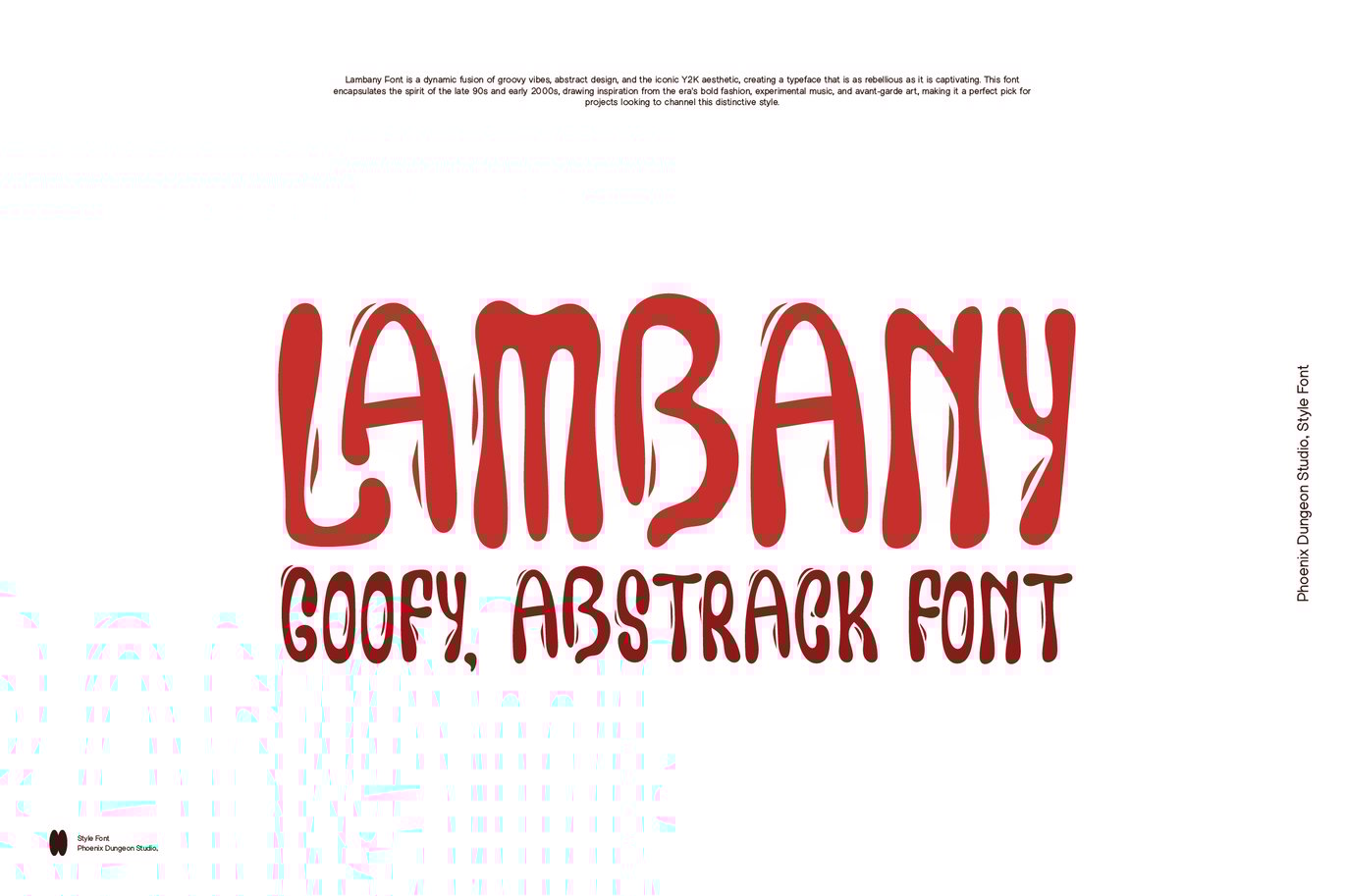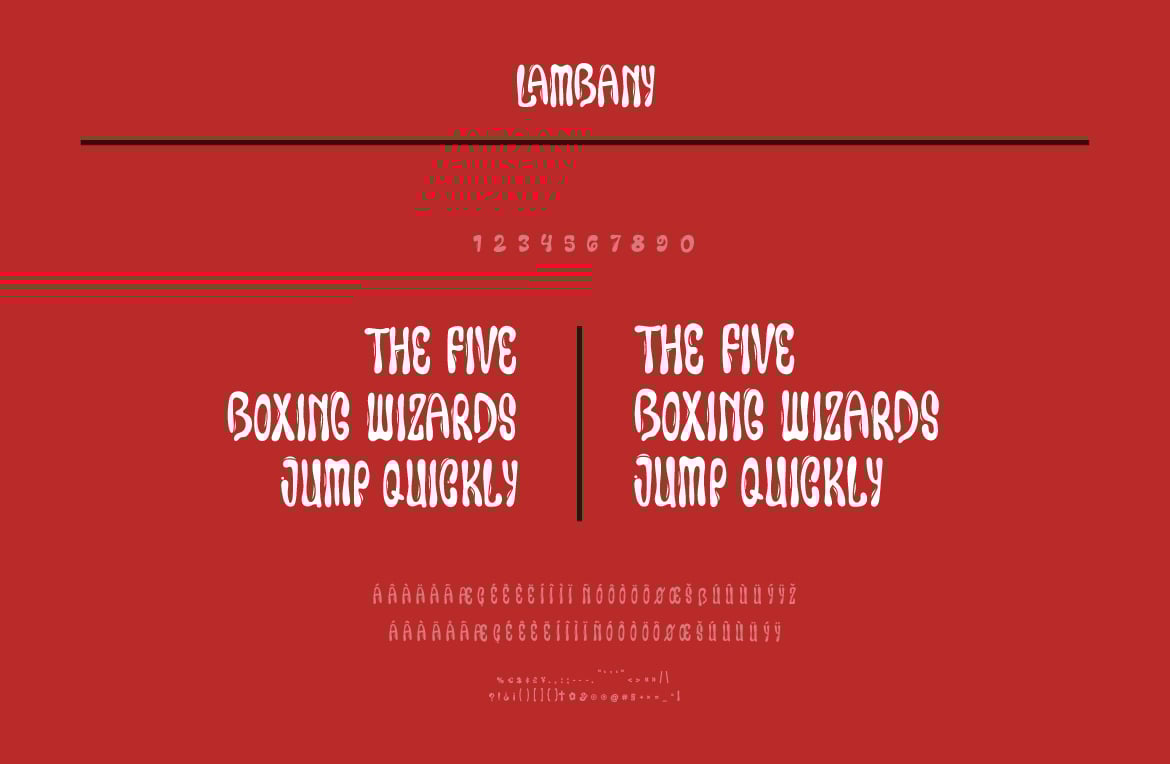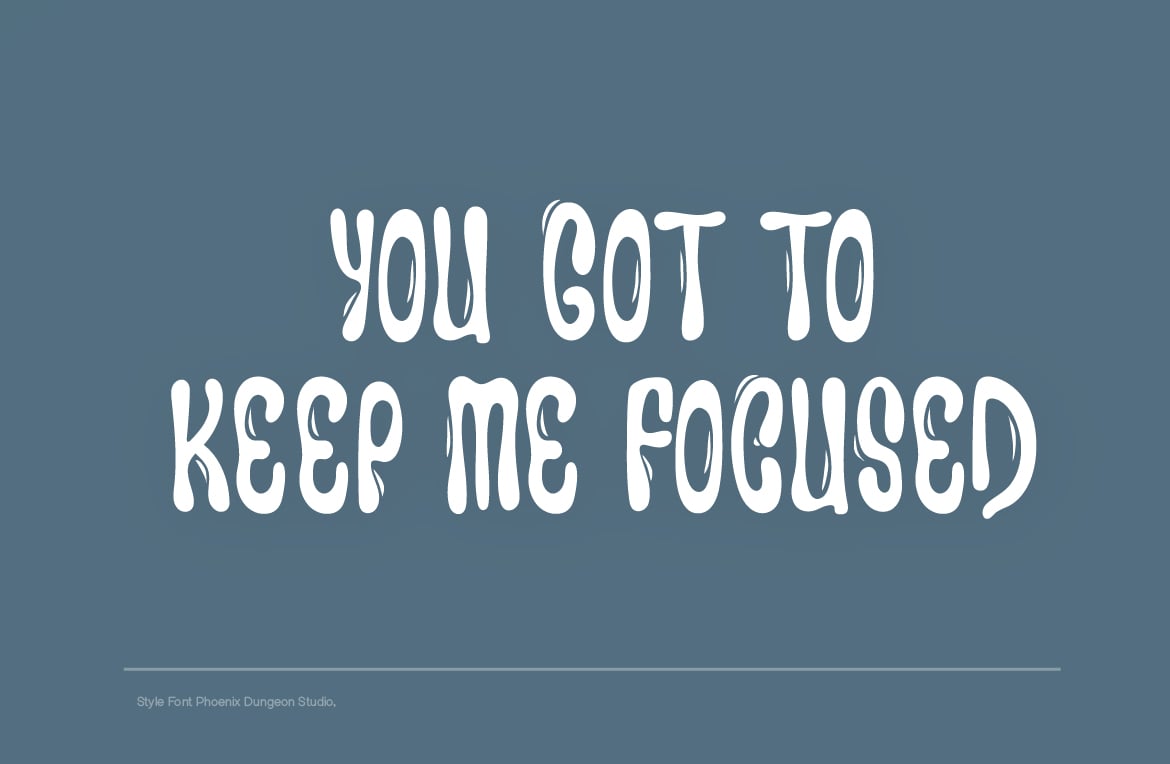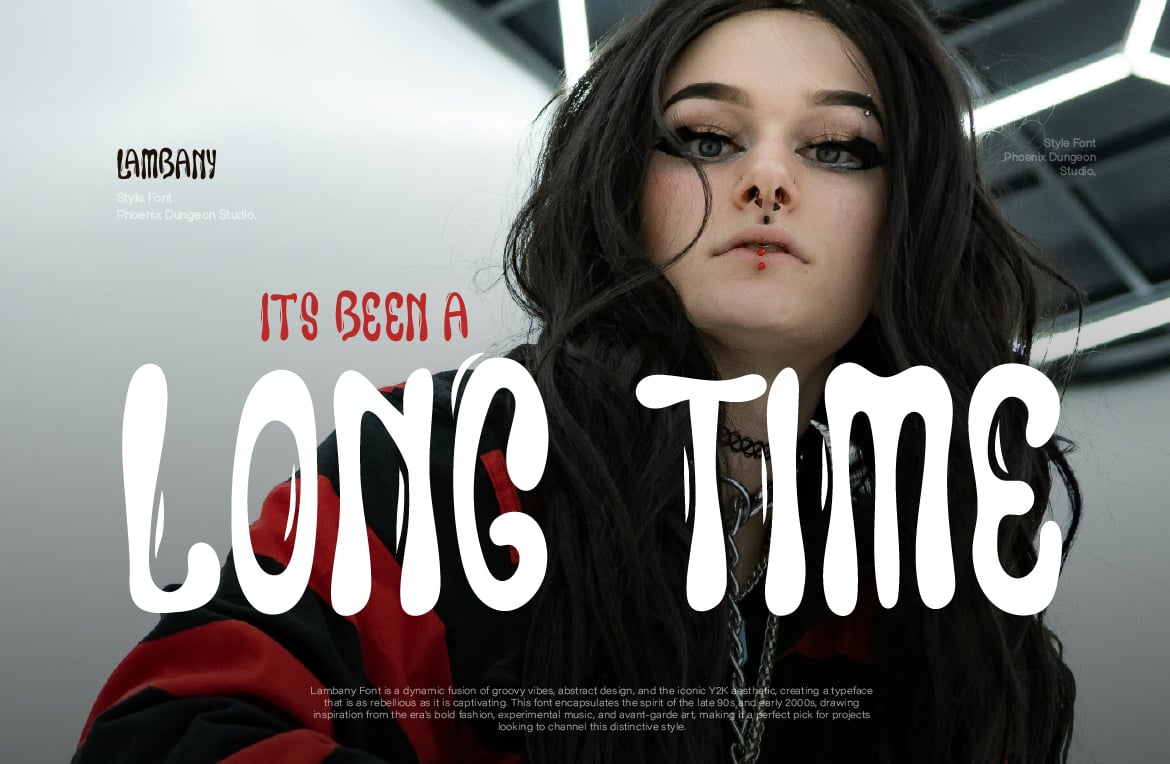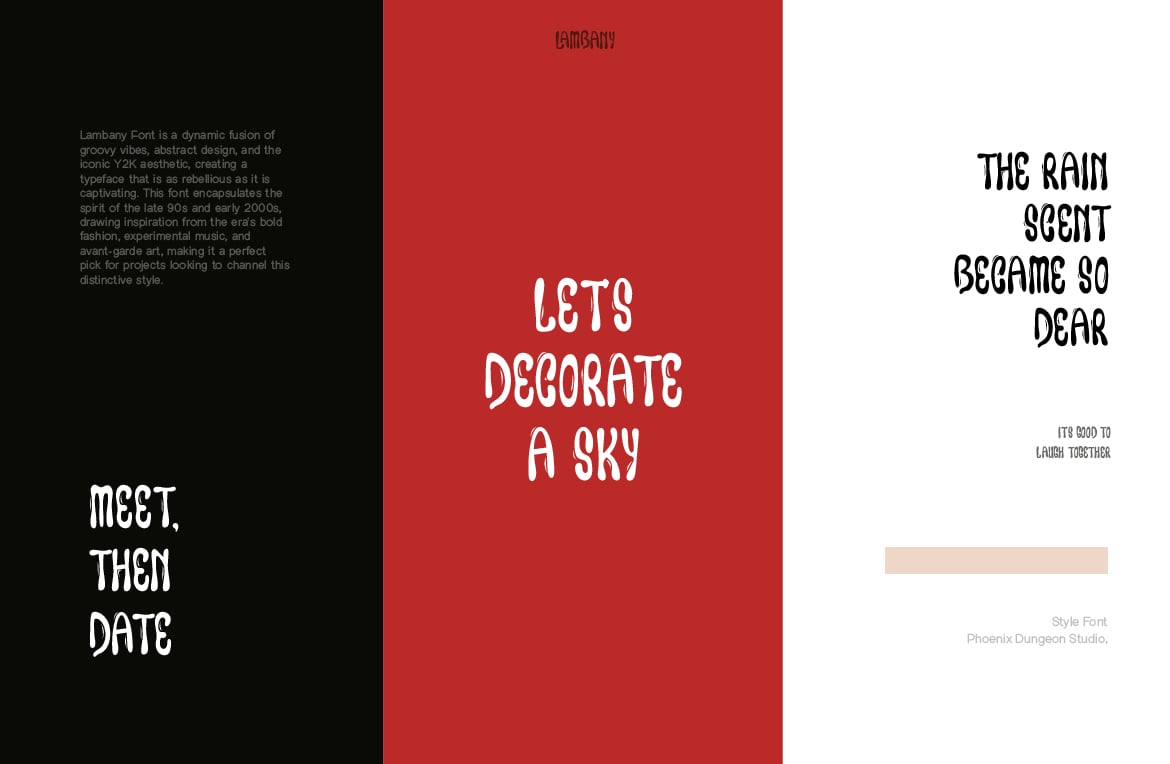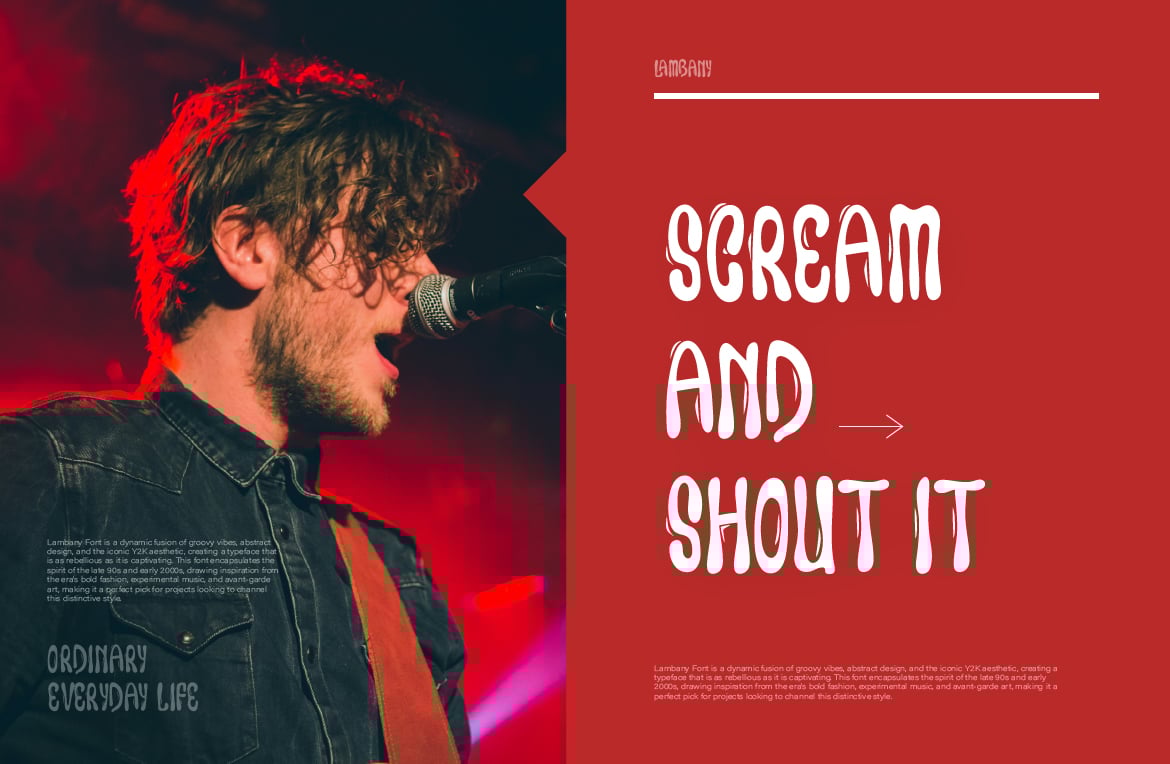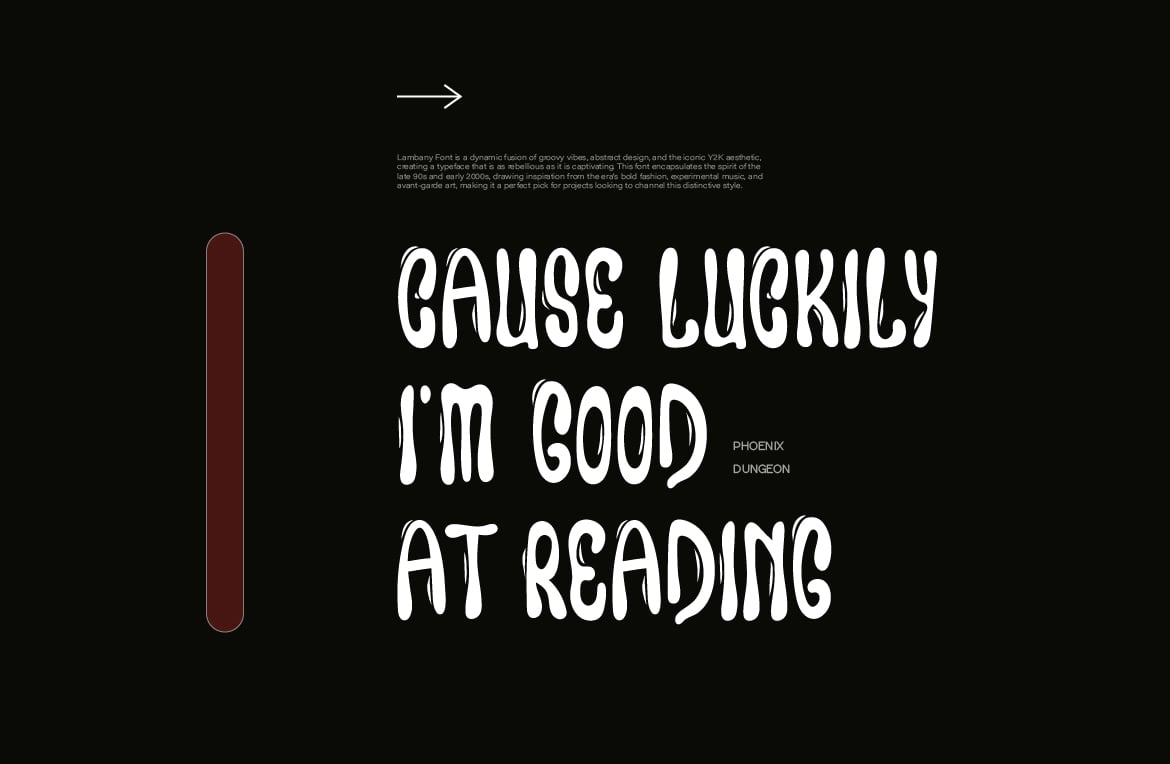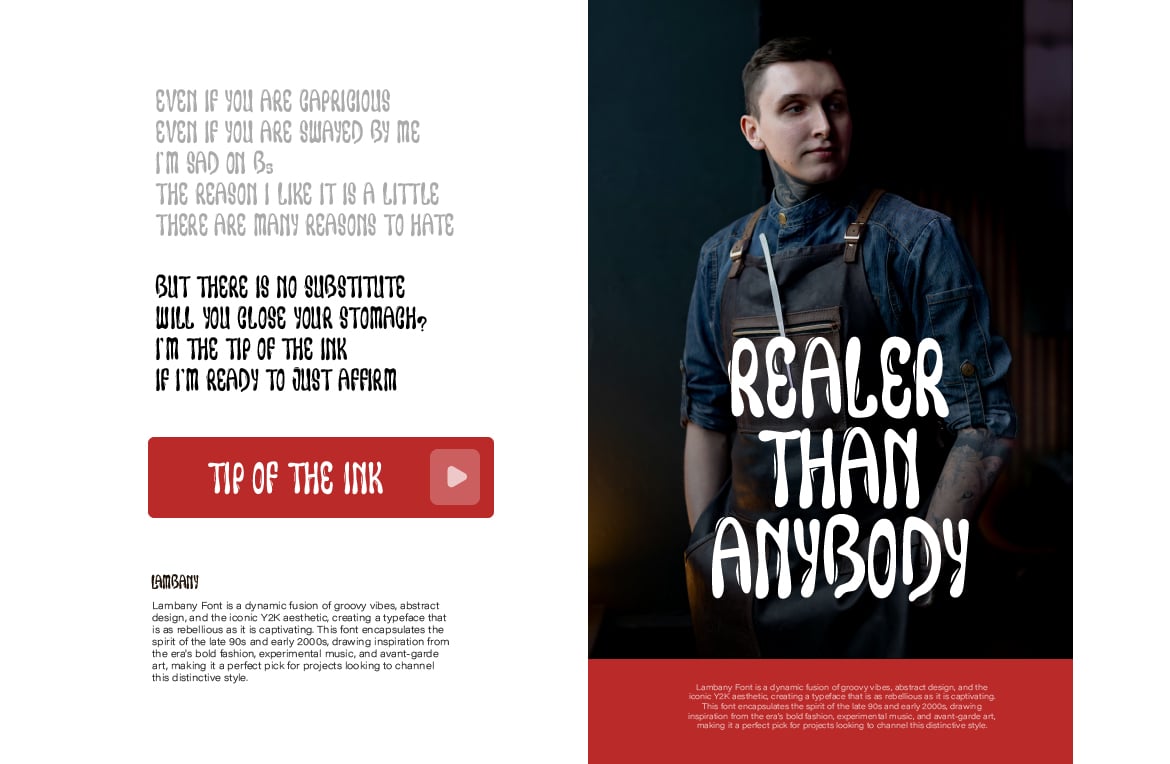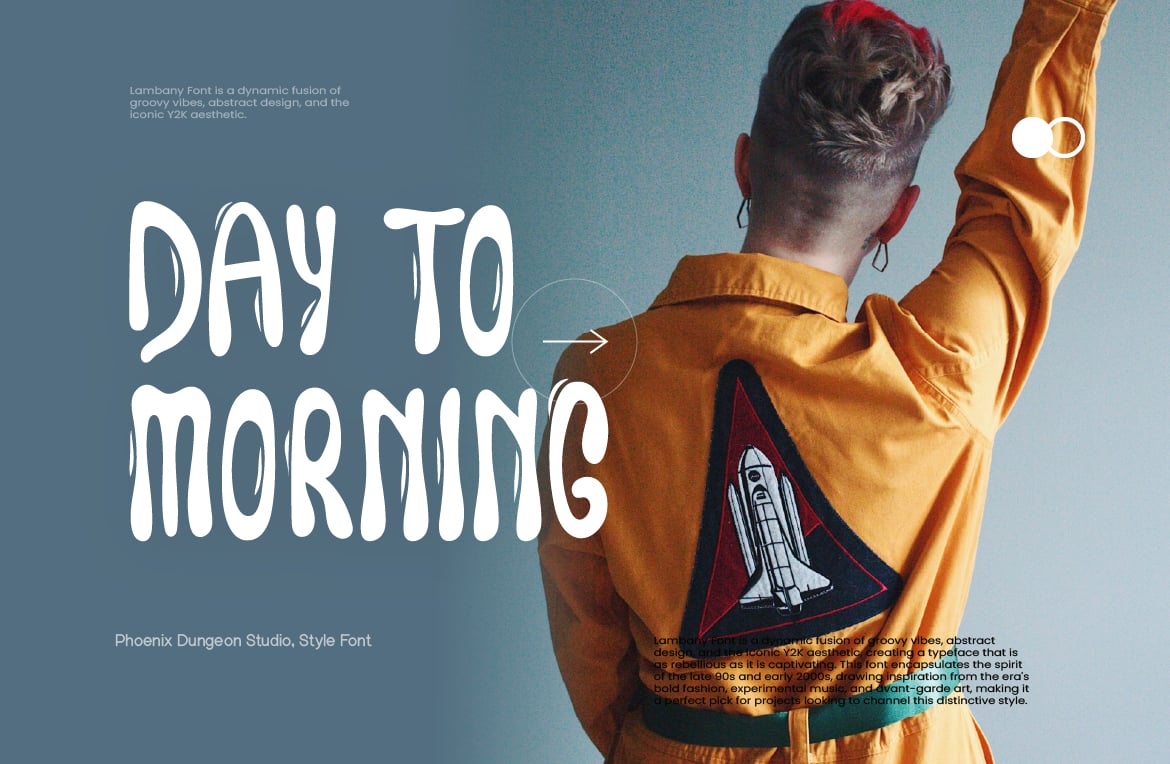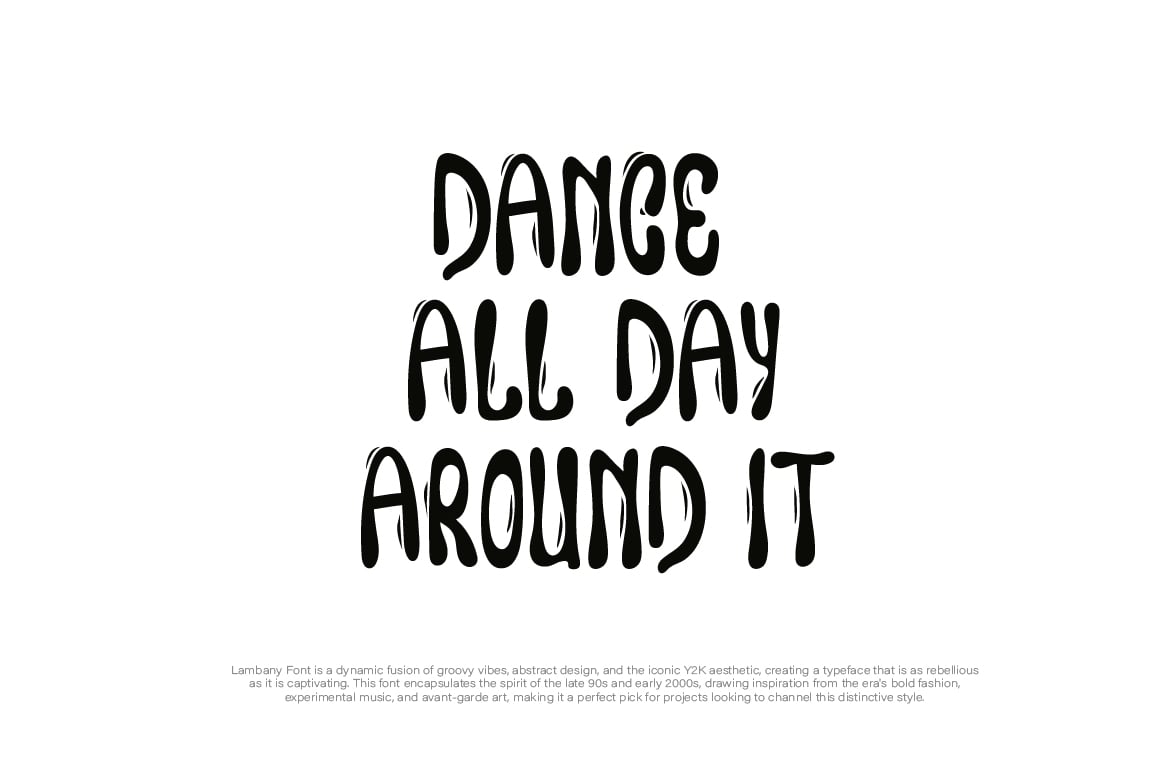
Lambany Font
Lambany Font is a dynamic fusion of groovy vibes, abstract design, and the iconic Y2K aesthetic, creating a typeface that is as rebellious as it is captivating. This font encapsulates the spirit of the late 90s and early 2000s, drawing inspiration from the era’s bold fashion, experimental music, and avant-garde art, making it a perfect pick for projects looking to channel this distinctive style.